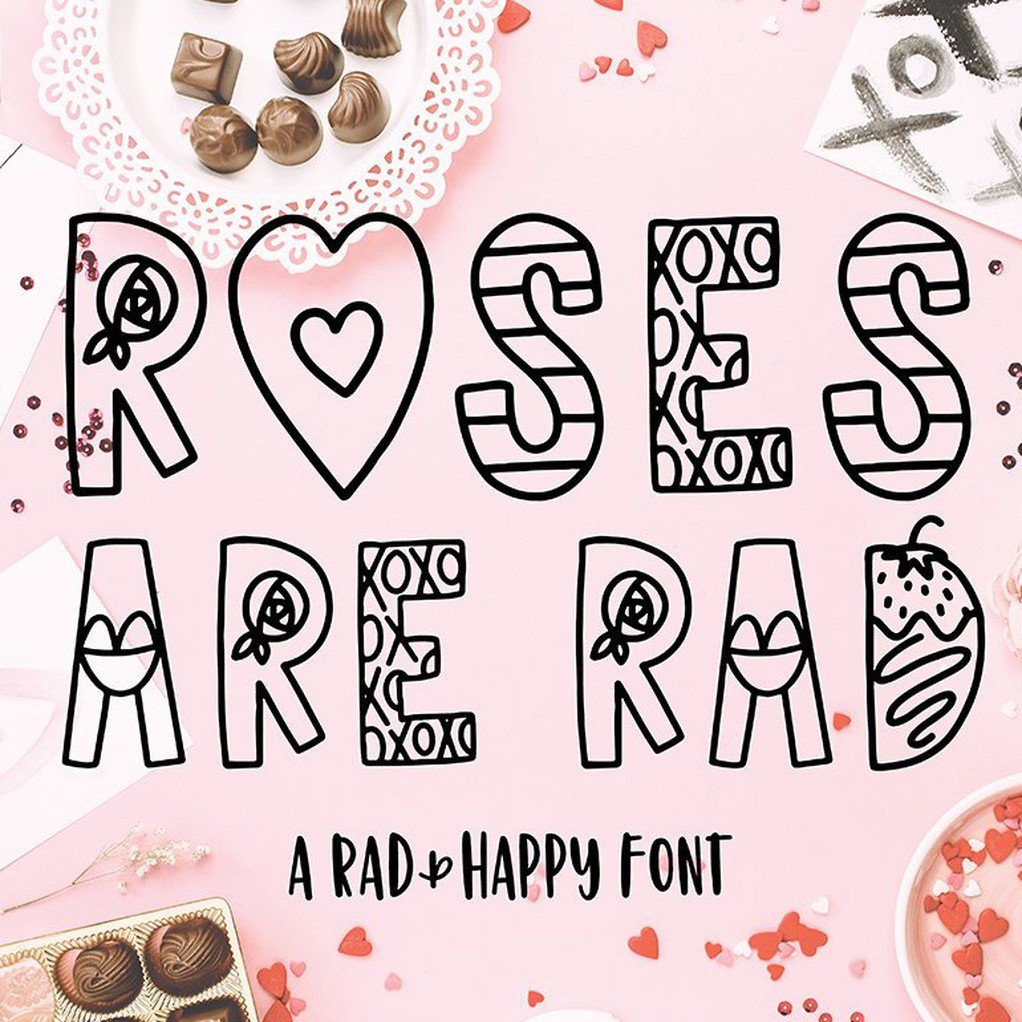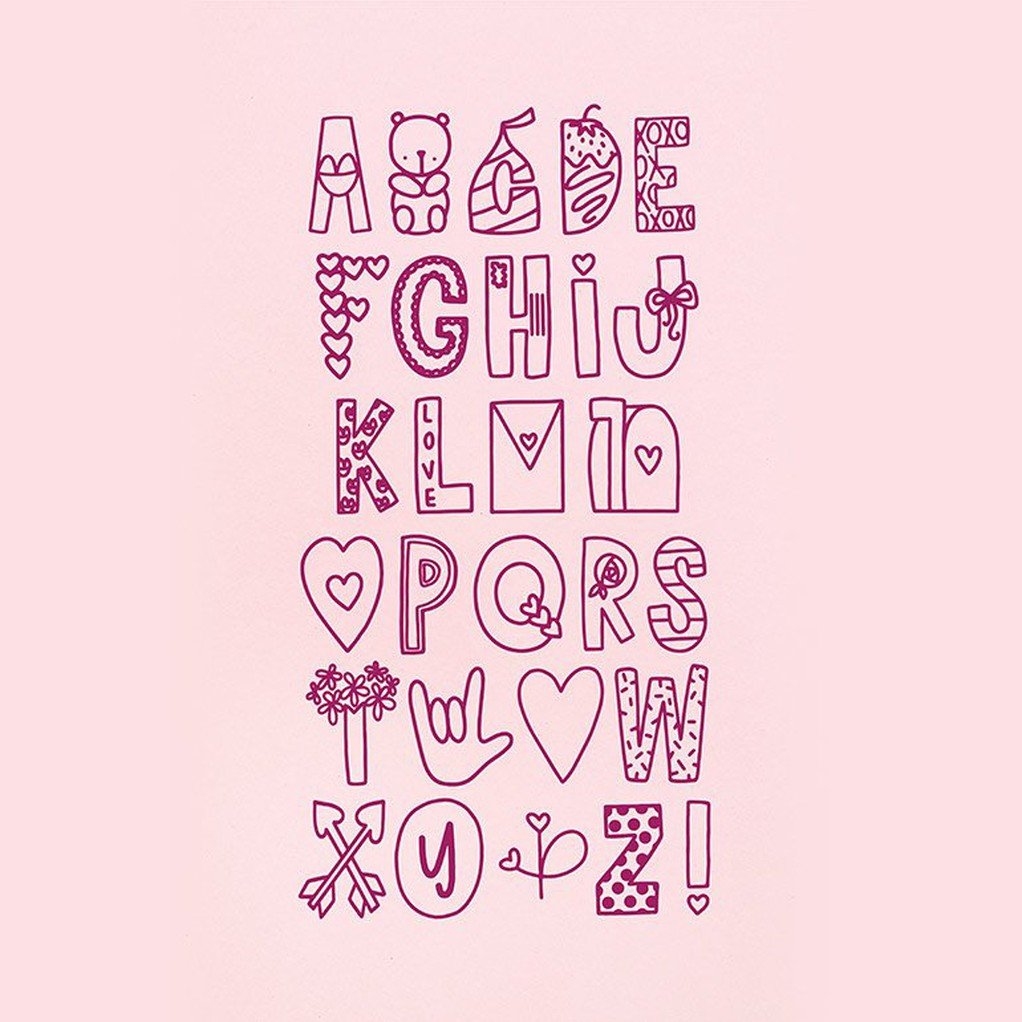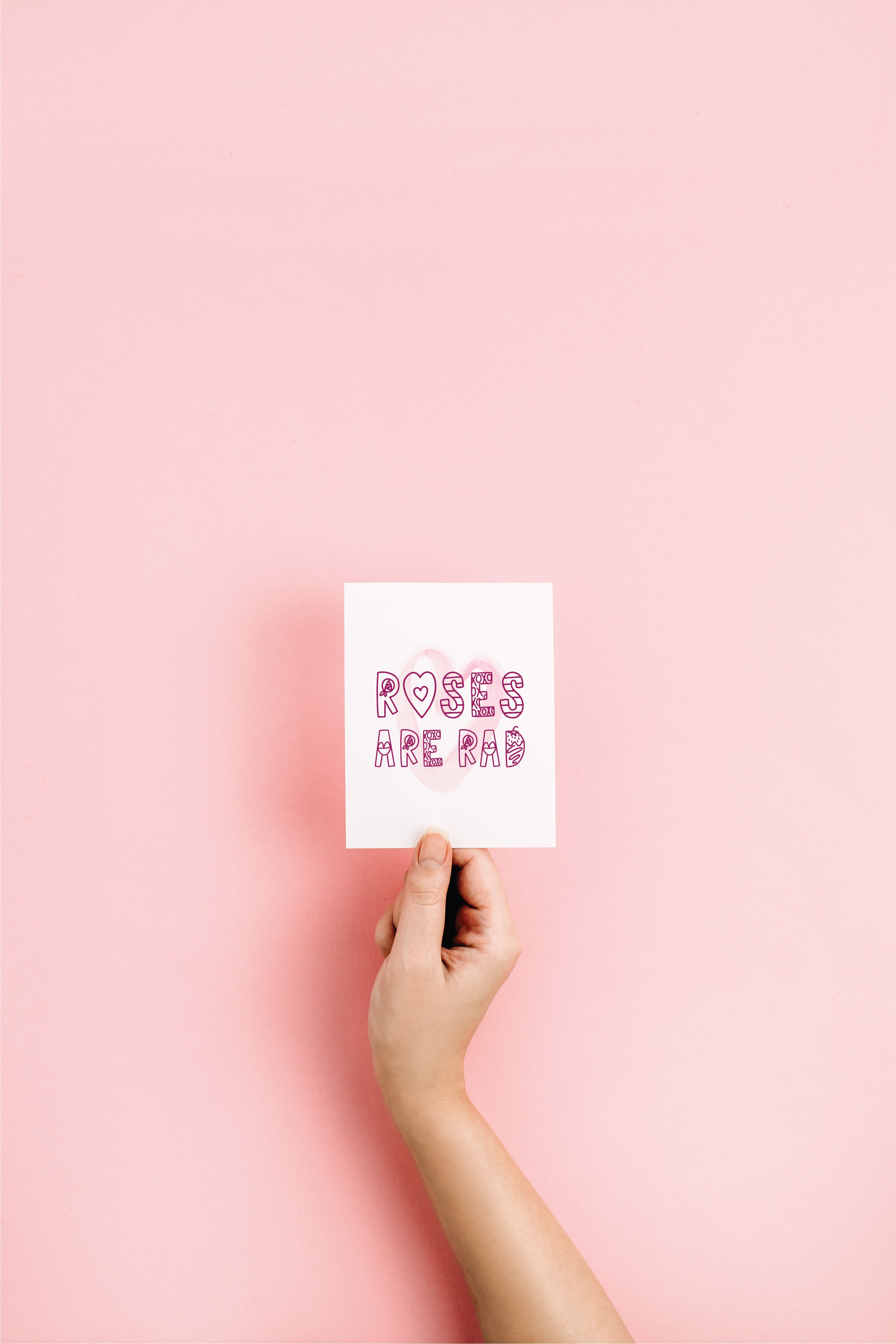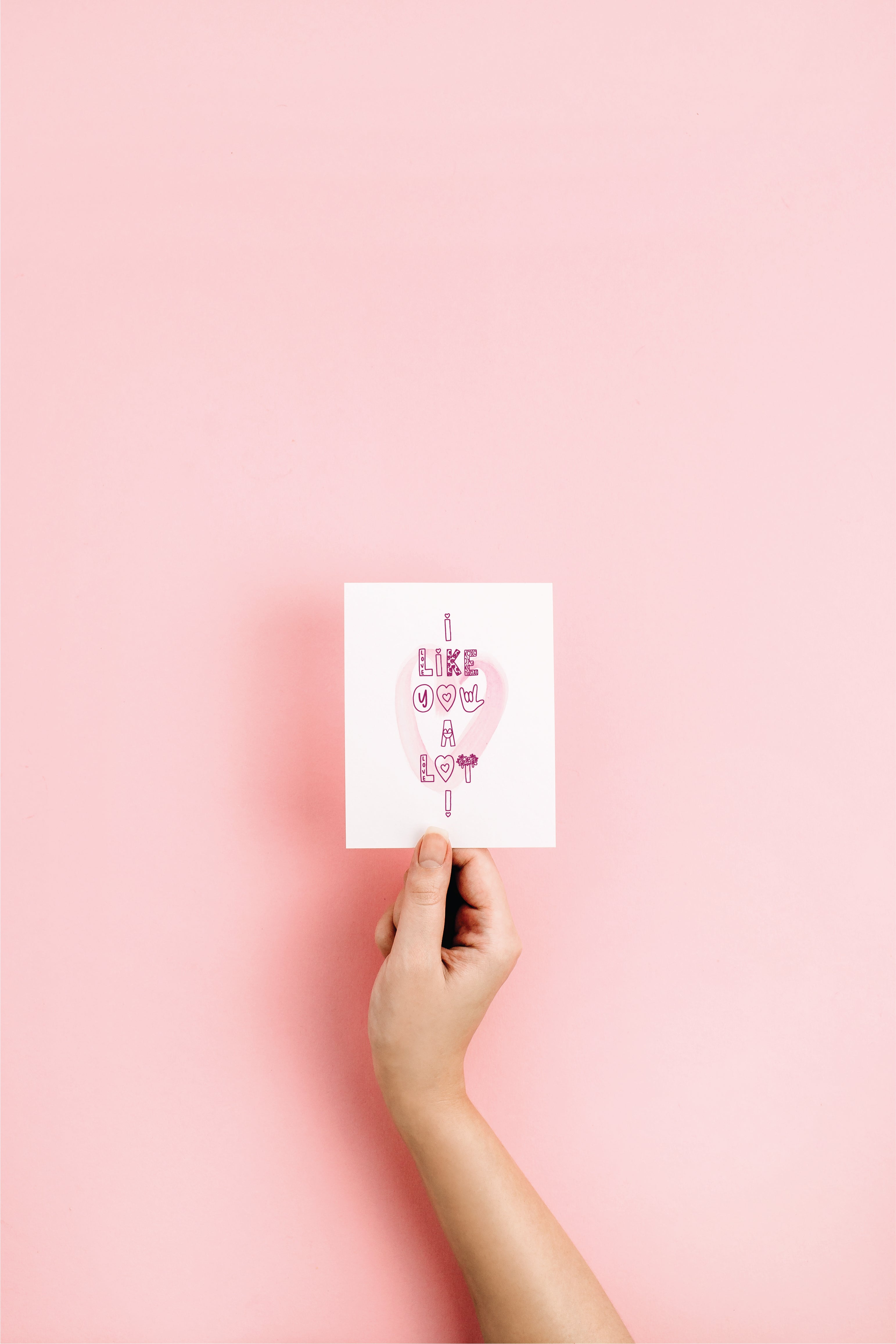
Roses Are Rad Font
Hi friend, I’ve got something awesome for you—this Rad & Happy Valentine’s Font, and I can’t wait for you to see how it makes your Valentine’s Day 100x more magical! I designed this cute font to add a little sunshine to your holiday, perfect for typing your kids’ names (they’ll lose their minds!), making custom Valentine’s notes for neighbors, or creating the sweetest lunchbox notes ever.
Why It’s Awesome:
- Made Just for You – I designed it to spread Valentine’s joy!
- Super Cute – Adds a playful, love-filled vibe to your projects.
Why Choose the Rad & Happy Valentine’s Font?
This font isn’t just about letters—it’s about adding a sprinkle of love and fun to your Valentine’s Day creations, making every note or project extra special. Seeing you create with it over the years has been a dream come true—I’m so stoked for you to try it!